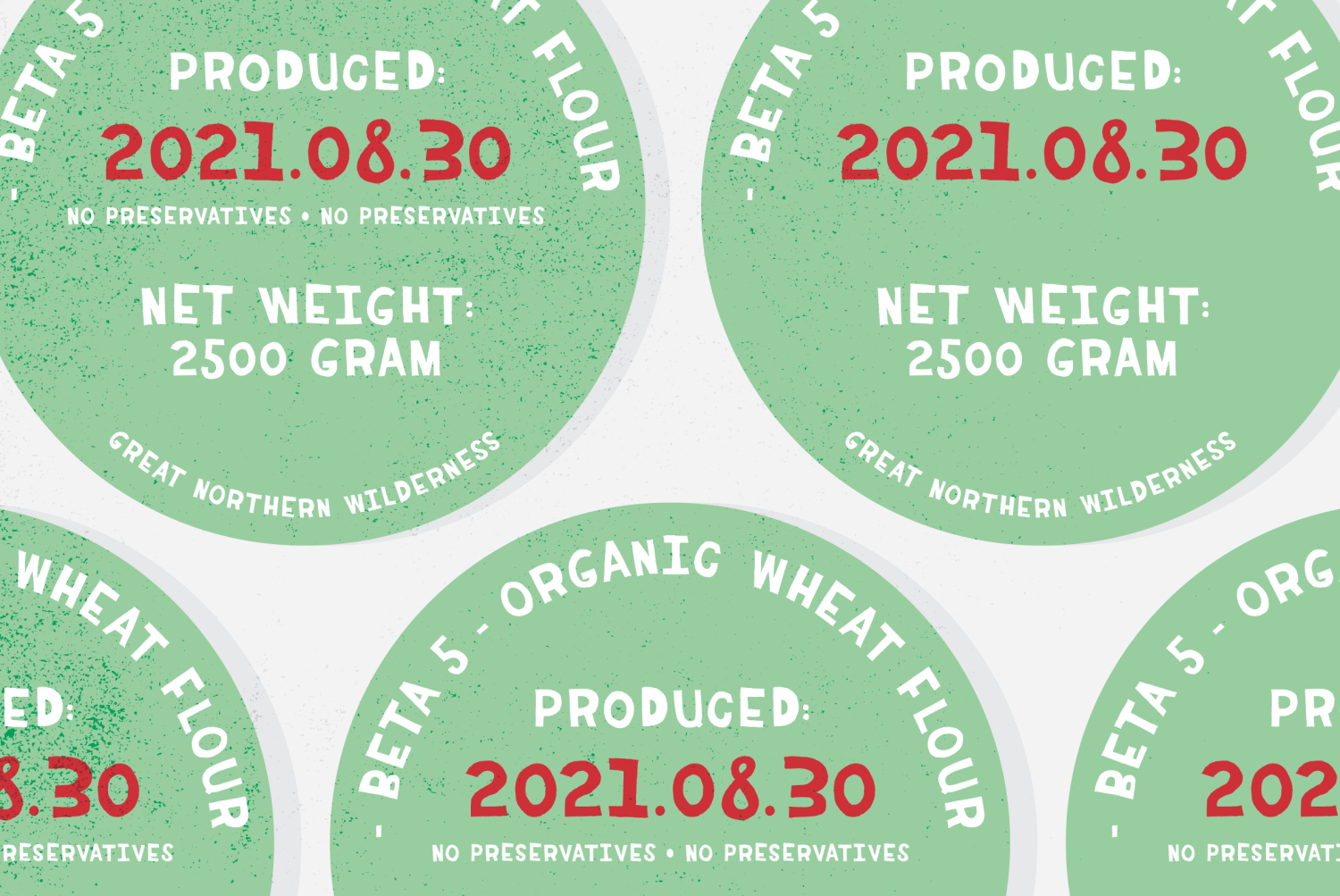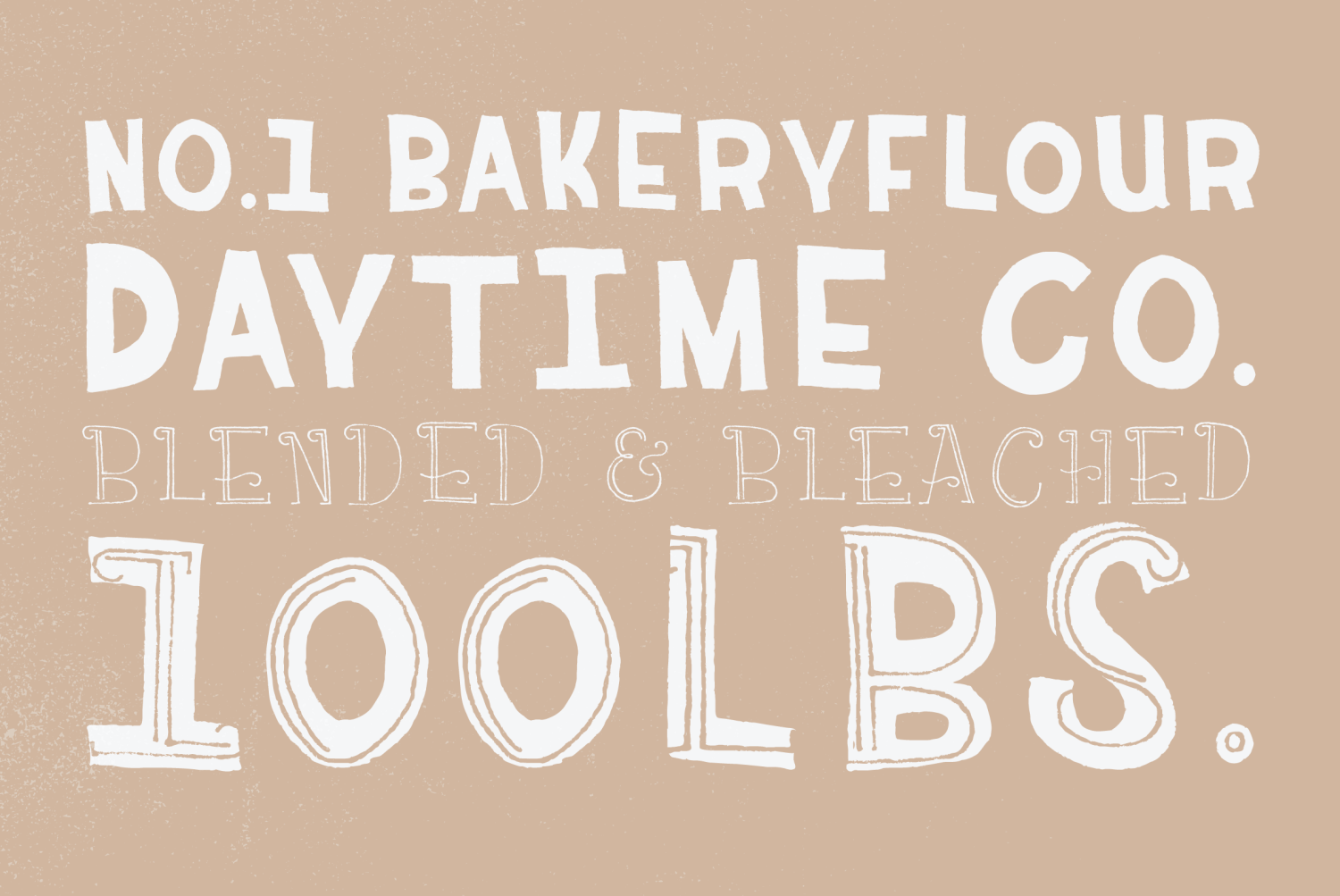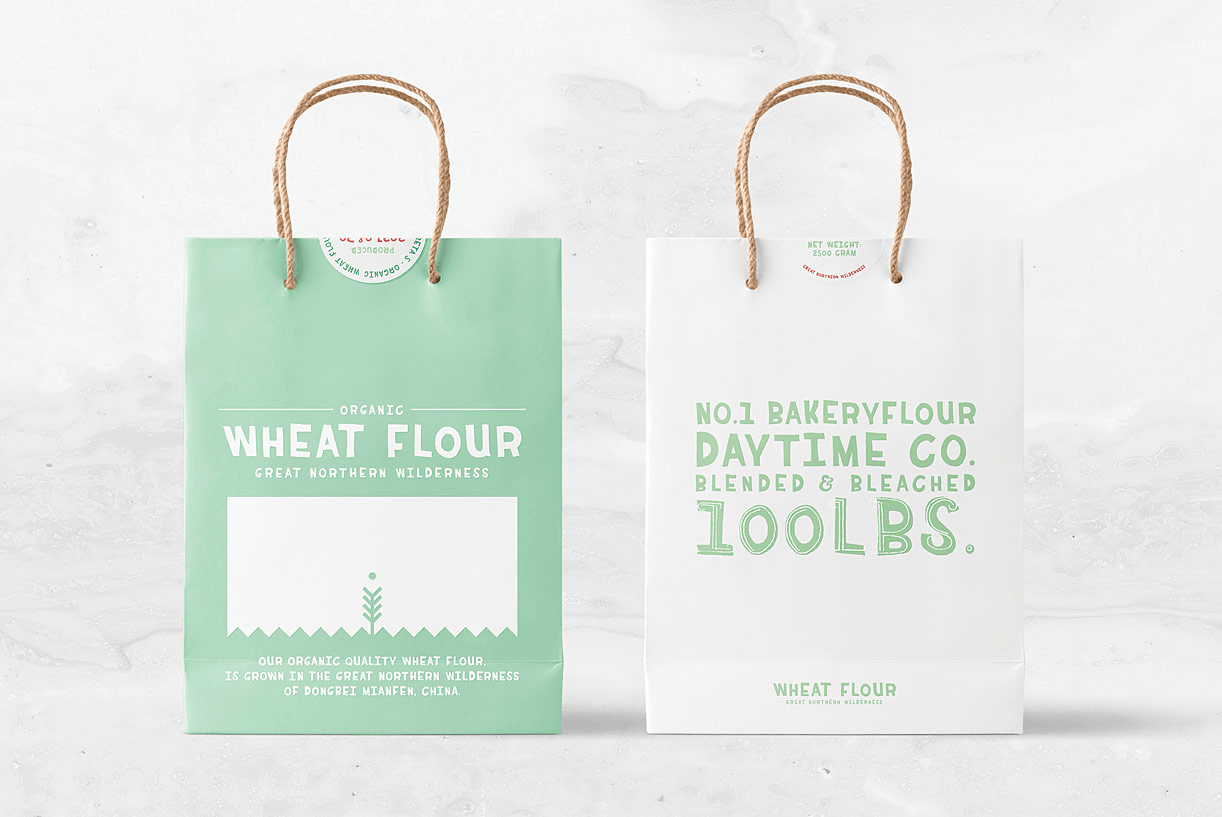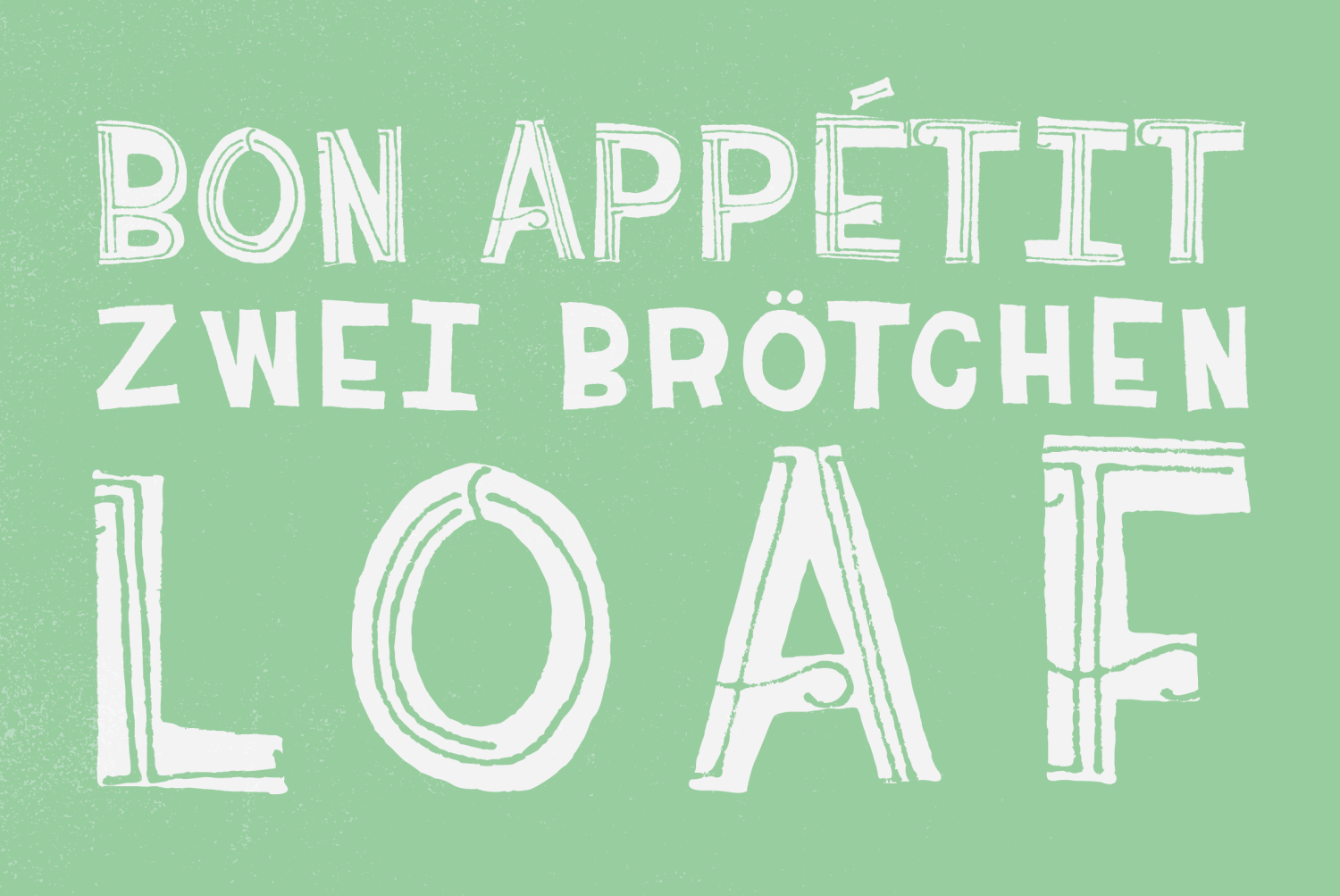
YWFT Owen
Font Family by YouWorkForThem
YWFT Owen is a handmade retro sans serif with a casual, human touch. Its straightforward letterforms keep it clean and readable, while the hand-drawn feel gives it a warmer, more relaxed personality than a typical geometric sans.
This family includes 2 styles—Regular and Inline—giving you a simple way to shift from solid, everyday display typography to a more decorative vintage look. The inline treatment adds extra character for work that needs a little more presence without losing clarity.
With its retro sensibility and approachable construction, it’s a strong fit for posters, packaging, branding, signage, and other display pieces that benefit from a handcrafted feel. Created by YouWorkForThem, it works especially well when you want typography that feels familiar, unfussy, and visually distinct.